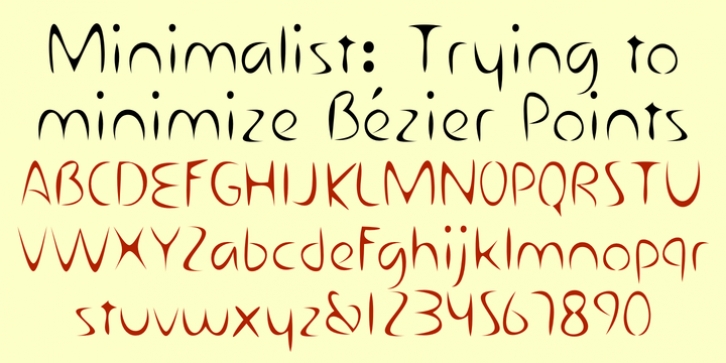
PostScript fonts are constructed by connecting dots, dots that have special attributes that control the shape of the connecting lines. In designing Minimalist, I wanted to see how few dots could be used to construct each letter. This is the source of the name--it is (or was) a minimum-point alphabet. I did not expect much from it, and was surprised that it turned out as well as it did.